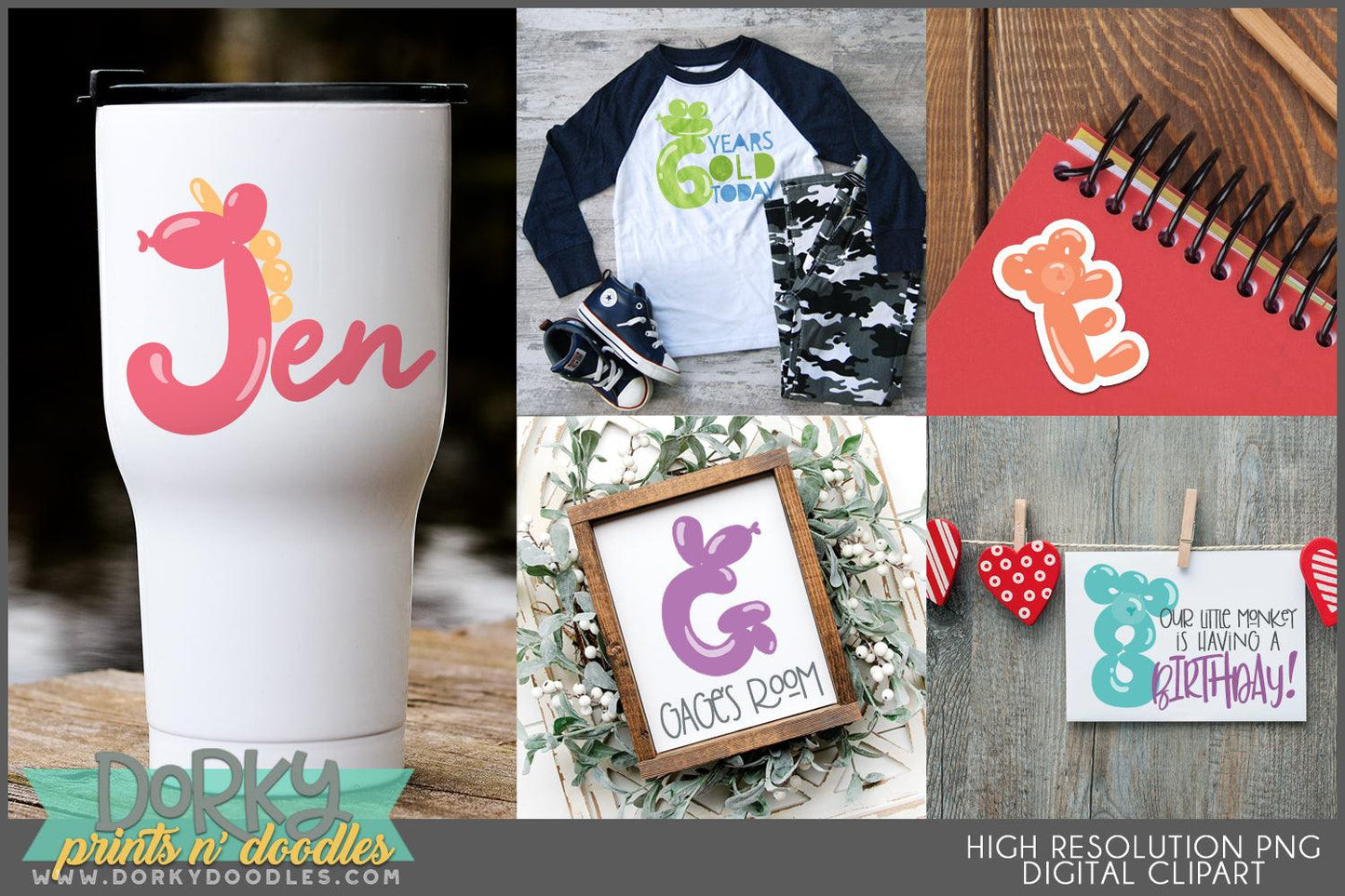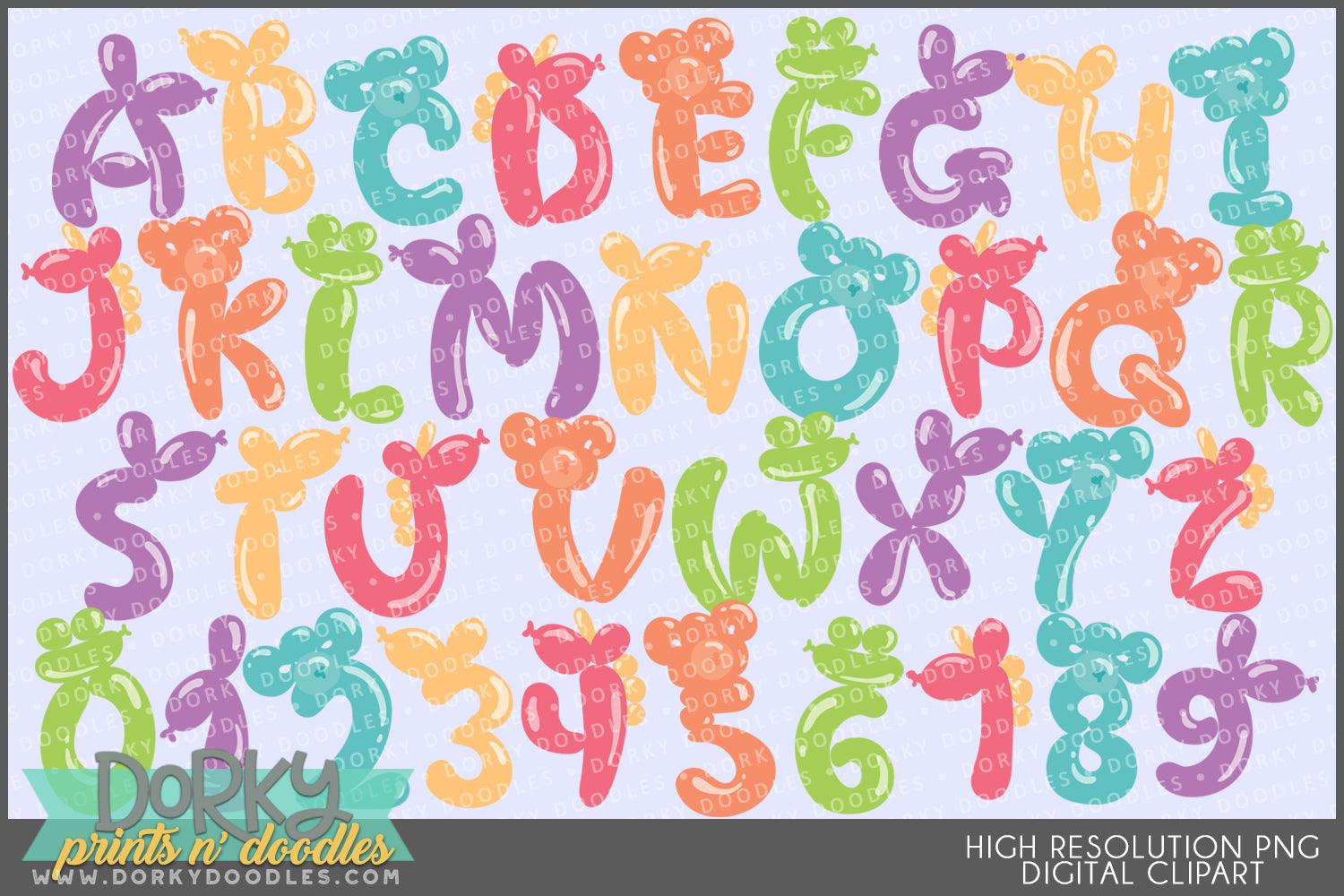
Balloon Animal Alphabet Clipart
These cute balloon animal alphabet clipart images look fabulous on cards, in scrapbooks, party invitations, planner stickers, sublimation projects, and decor! You will get 6 Digital Clip Art images in high resolution PNG format (they come as a ZIP file that you can download instantly once payment has cleared).
• the full alphabet and numbers 0-9 using balloon dogs, monkeys, bears, frogs, and unicorns